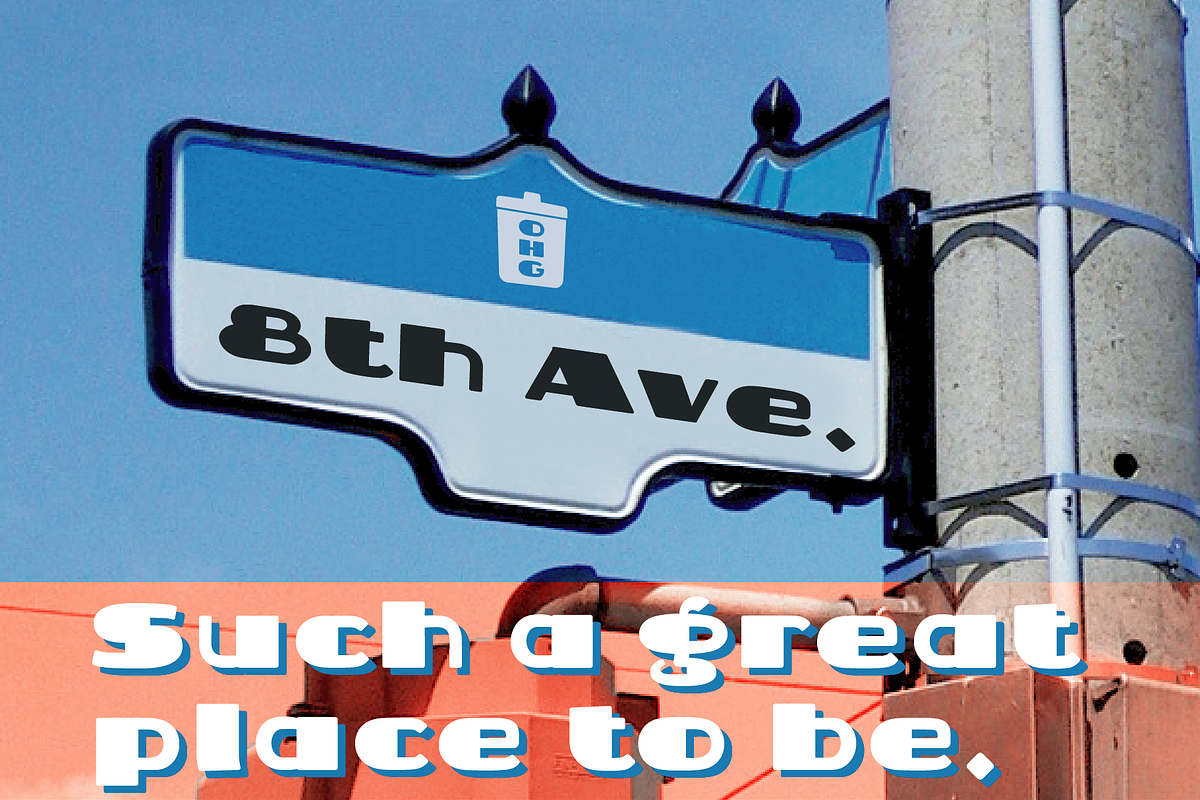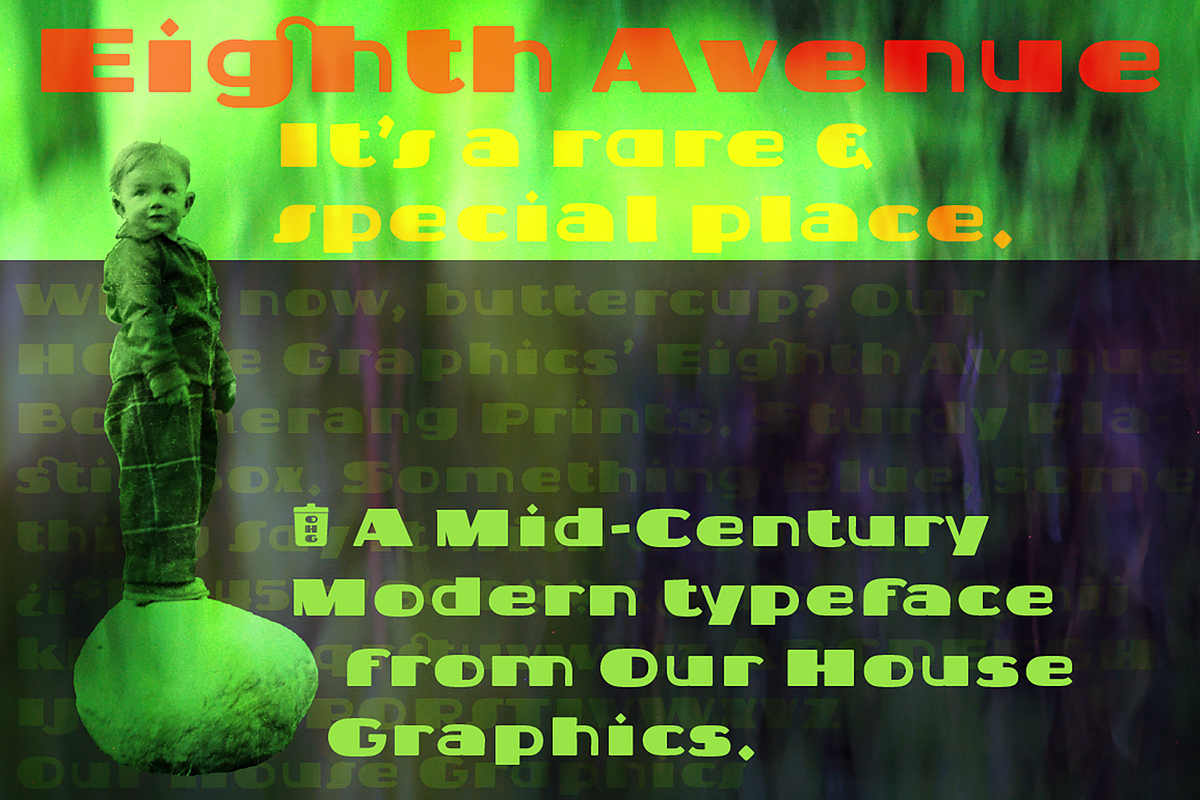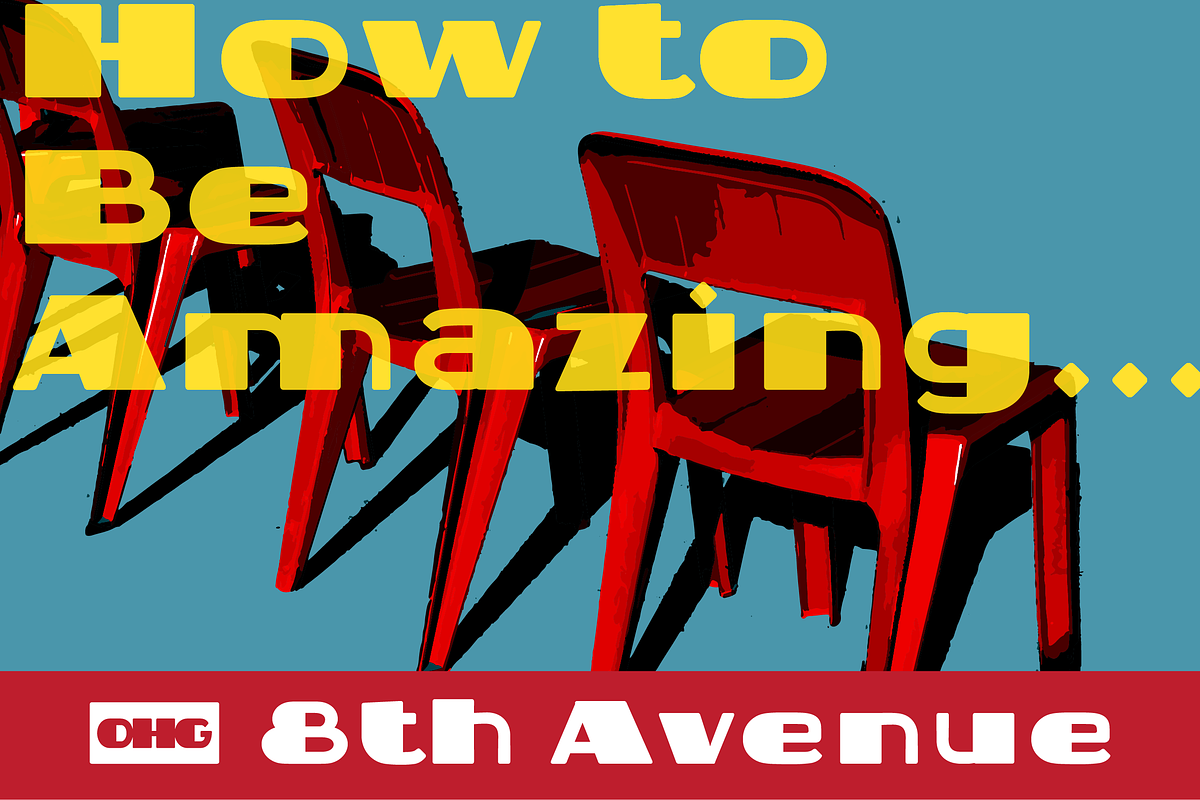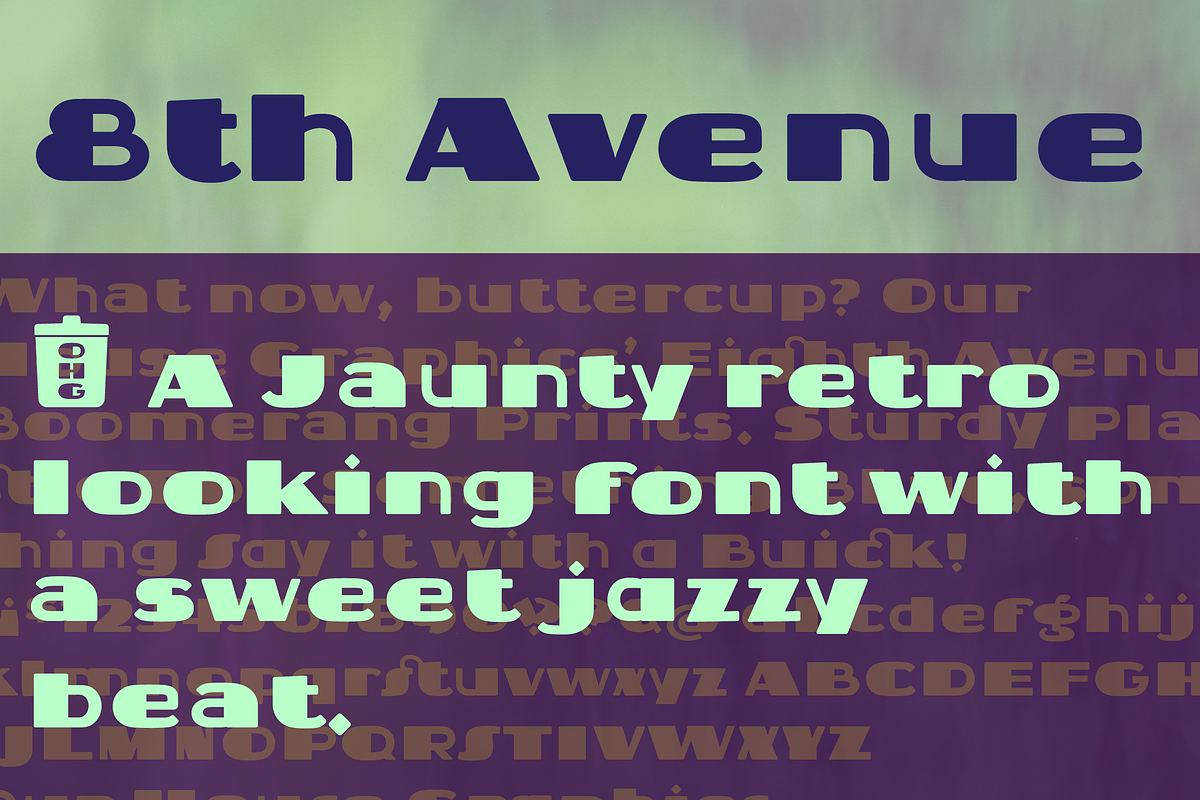
8th Avenue
Inspired by some strange, blocky lettering on the sides of a set of plastic kitchen containers in my childhood home, 8th Avenue is a sophisticated, somewhat syncopated font with a retro look and feel that at the same time brings a very modern attitude to your design. 8th Avenue works well as display font for packaging, headlines and logos.
Those pastel turquoise plastic boxes from the early 1950’s, with white screen printed letters reading “FLOUR”, “SUGAR”, “COFFEE” etc. on one side were a simple quiet presence in our home back then and for decades after. Seeing them—Even that soft blue-green colour felt like home.
“SUGAR”, the soul survivor of that set has become one of those mundane items of daily life that somehow become simple icons of another time, ripe with memories.
Obviously I had to make a font.